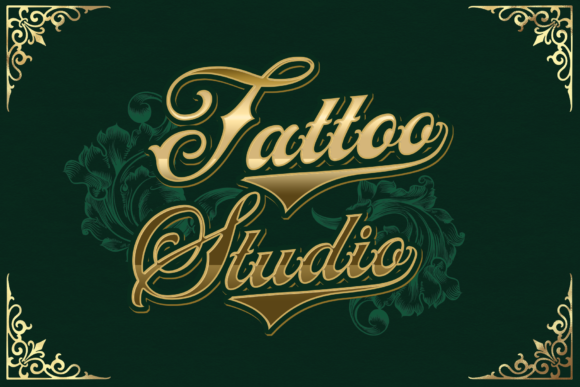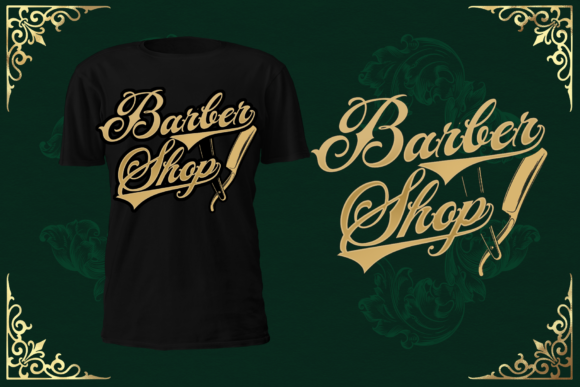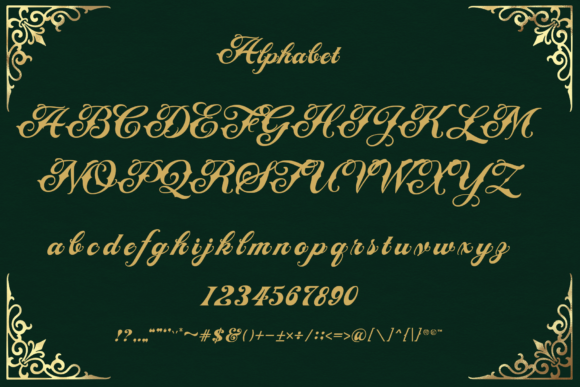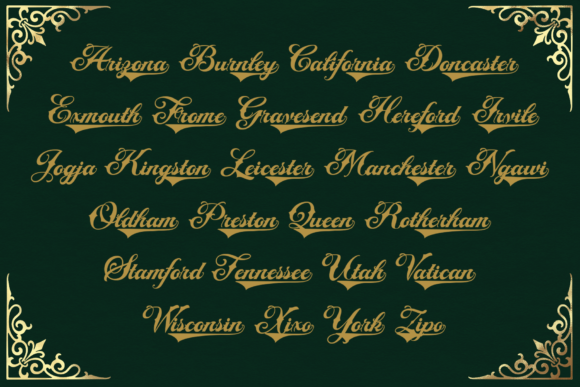
About Thomeda Font
Thomeda is a gorgeous and bold handwritten font, crafted to give your headlines and logotype projects a vintage touch. This font reads as strong, confident, and dynamic and can add tons of nostalgic character to your designs.